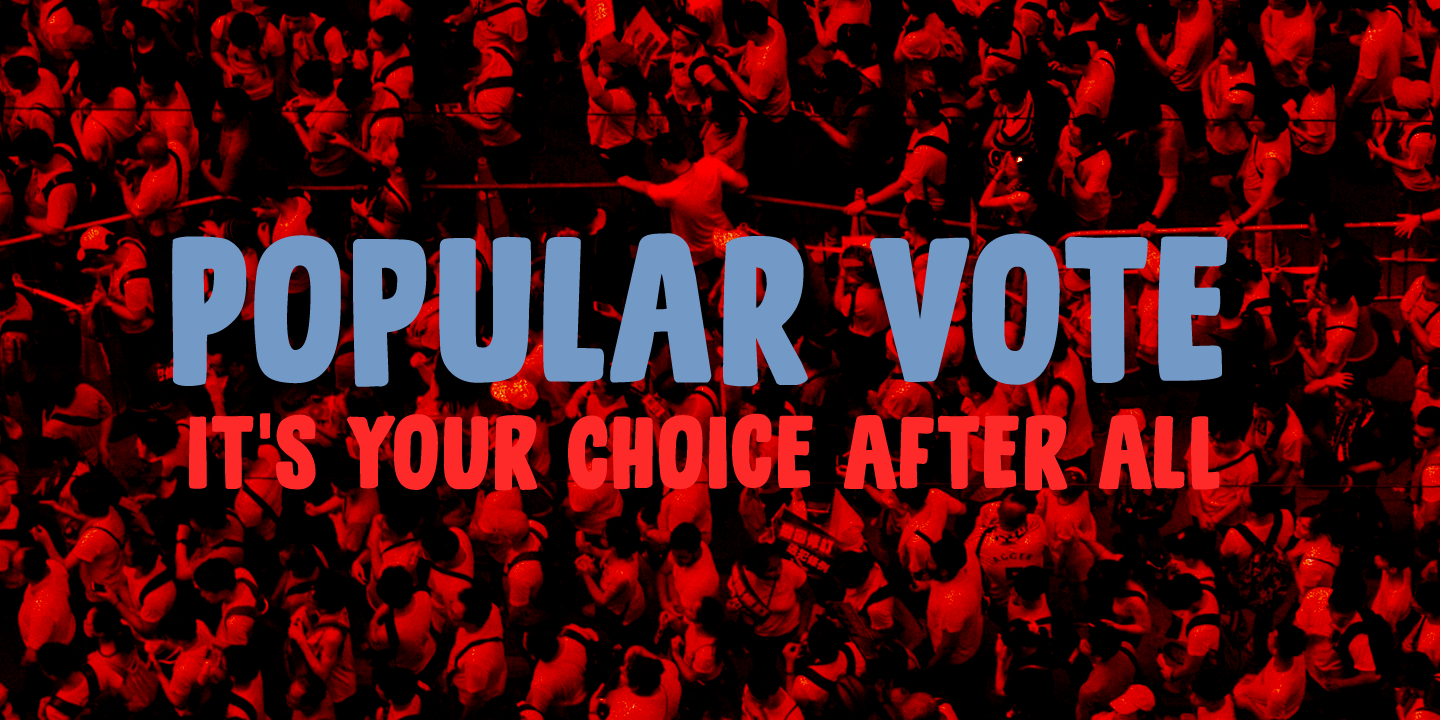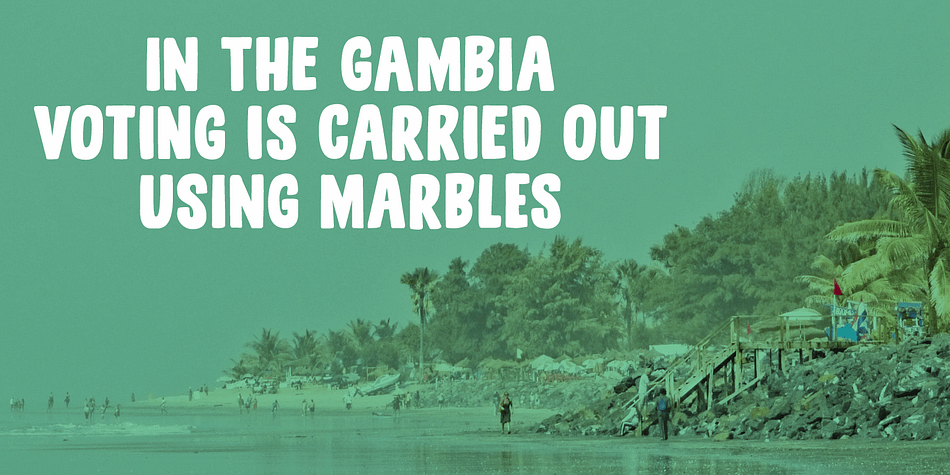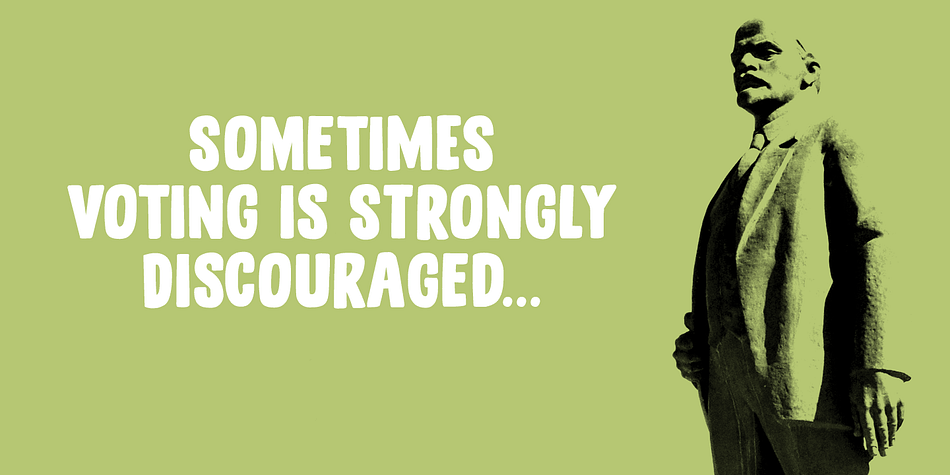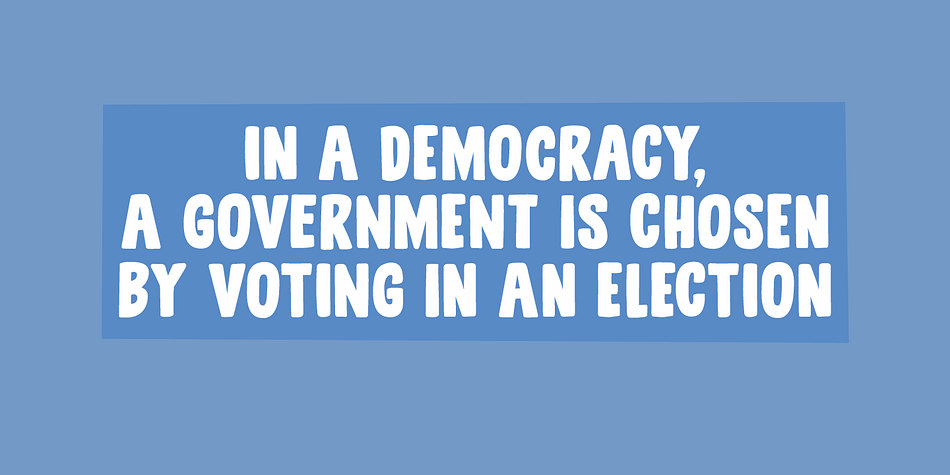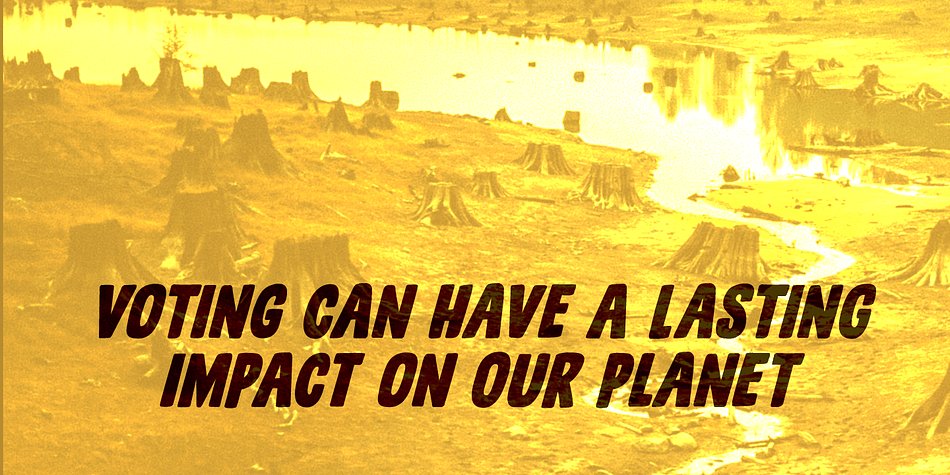
Designed by David Kerkhoff, Popular Vote is a hand display and hand drawn font family. This typeface has two styles and was published by Hanoded.
I made this font during the rather hectic start of 2021. Popular Vote is an easygoing, laid-back kinda font. It fits just about anywhere, regardless of your political orientation, your sense of aesthetics or the job you will use it for.
Popular Vote will feel at home on a box of crackers, on the cover of a book about keto diets, or on that T-shirt you have always wanted to design.